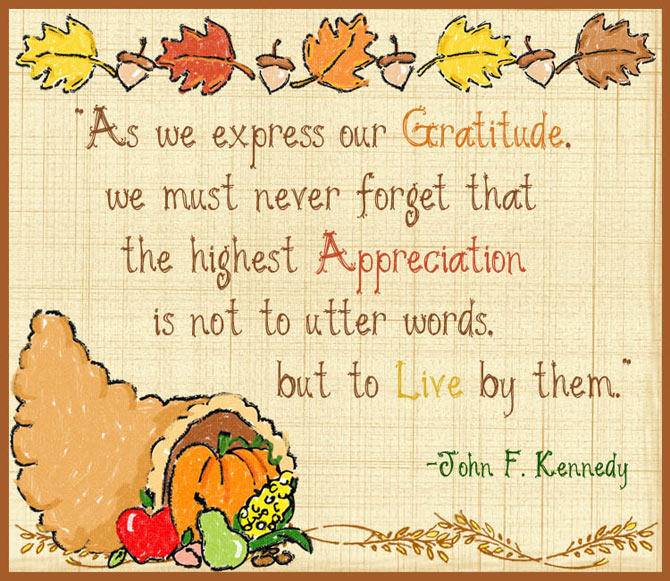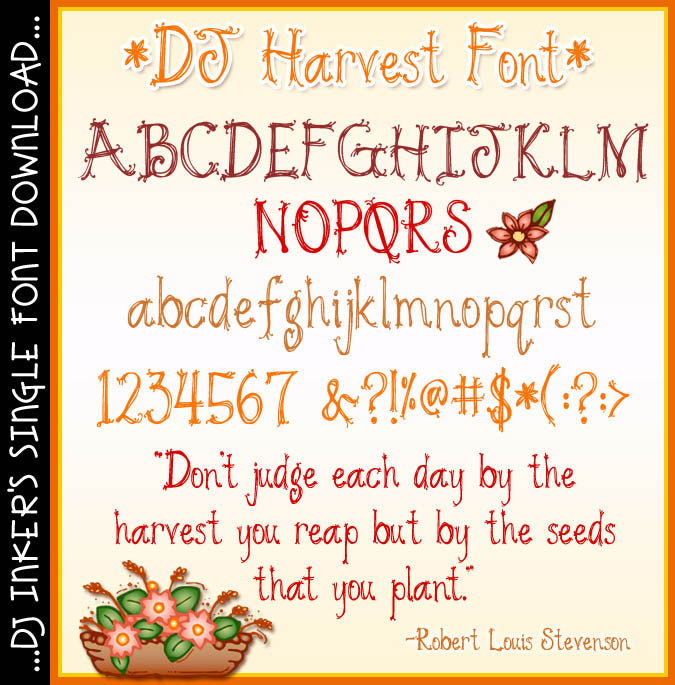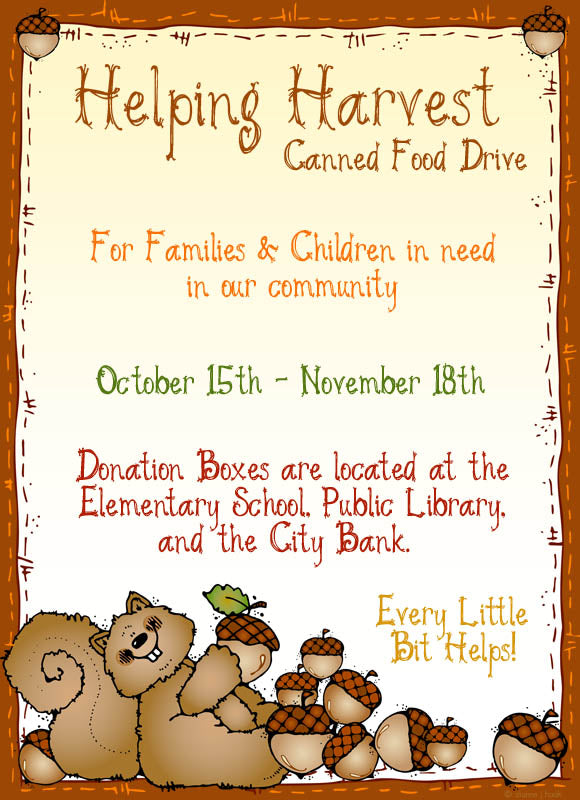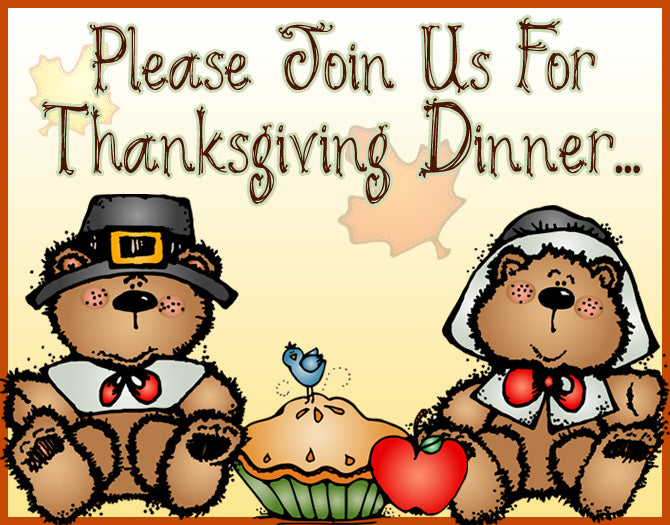
DJ Harvest Font Download
DJ Harvest is a wonder-FALL way to set the scene for elegant autumn lettering, but this delicate DJ font will add charm & grace to your projects any time of year! Perfect for notes and quotes, fall festivities, letters to loved ones and elegant lettering for special events.